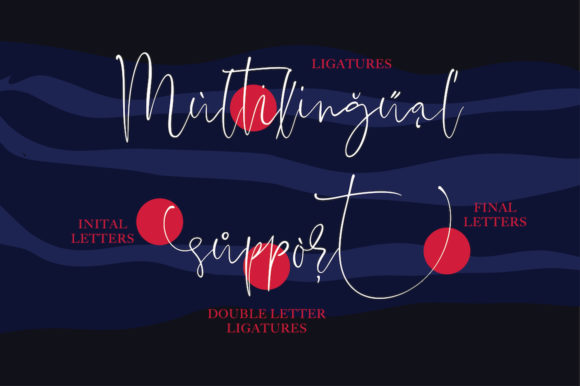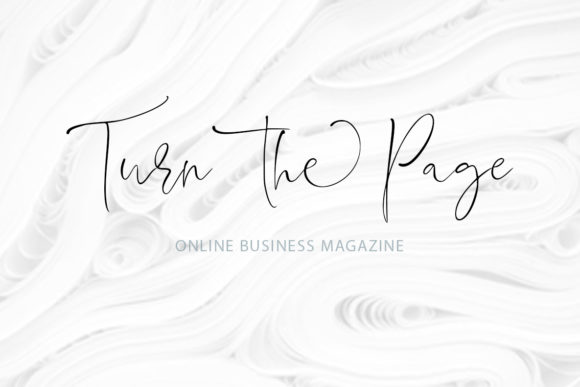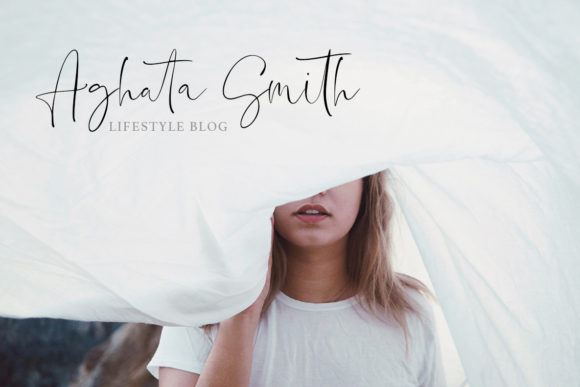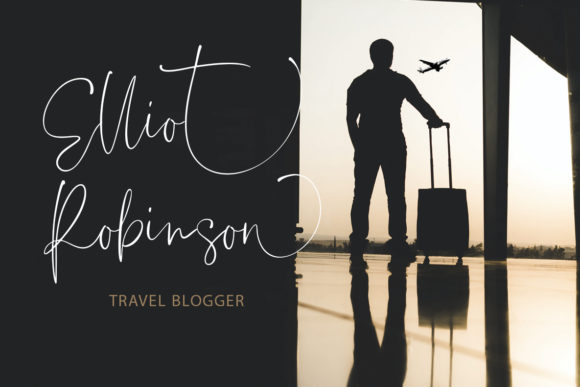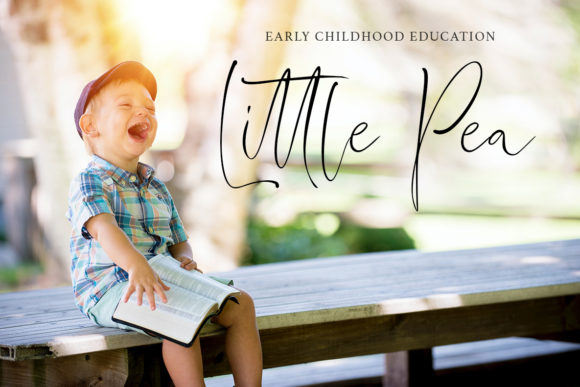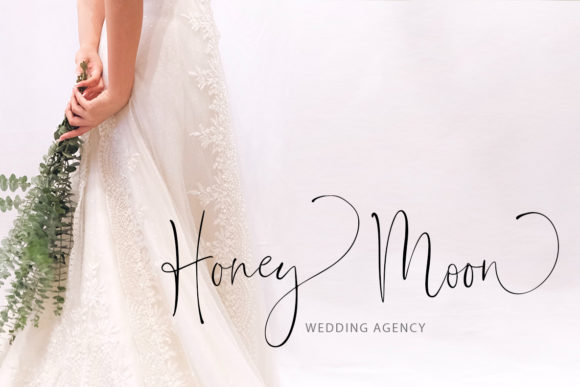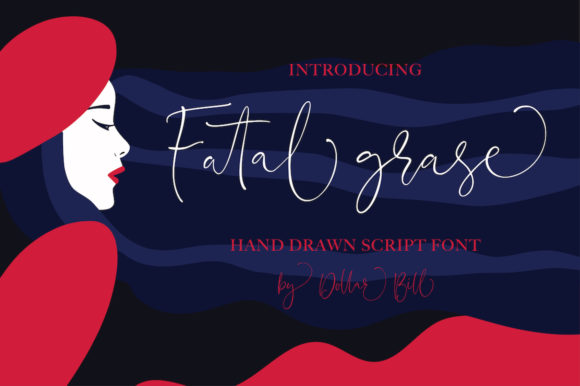
Introducing Fatal Grace Font: Elevate Your Designs with Timeless Elegance
In the world of typography, few fonts manage to strike a balance between classic sophistication and friendly approachability. Fatal Grace Font is one such exceptional typeface that combines the best of both worlds, offering a magical handwritten aesthetic with a touch of elegance. This stunning font is meticulously crafted to bring a sense of timeless elegance and authentic calligraphy to your designs, making it an indispensable tool for designers and crafters alike.
The Essence of Fatal Grace Font
Fatal Grace Font is a beautiful blend of traditional calligraphy and modern sensibilities. Its incredibly classic style is reminiscent of bygone eras, yet it retains a friendly feel that makes it approachable and relatable. This unique combination makes Fatal Grace an ideal choice for a wide range of design projects, from wedding invitations and branding materials to blog headers and digital content.
Key Features of Fatal Grace Font
- Magical Handwritten Aesthetic: Fatal Grace boasts a whimsical, handwritten look that adds a personal touch to any design.
- Timeless Elegance: The font exudes a classic sophistication that ensures your designs never go out of style.
- Authentic Calligraphy: With its roots in traditional calligraphy, Fatal Grace brings an air of authenticity to your typography.
- Friendly Feel: Despite its elegance, the font maintains a friendly and approachable vibe, making it versatile for various applications.
- Perfect for Original Designs: Fatal Grace is designed to help you create standout designs that are both unique and visually appealing.
Why Choose Fatal Grace Font?
For designers and crafters looking to elevate their work, Fatal Grace Font offers several compelling advantages:
- Versatility: Whether you’re working on digital content, print materials, or handmade crafts, Fatal Grace adapts seamlessly to different mediums.
- Emotional Connection: The font’s handwritten nature and elegant style help create an emotional connection with your audience, making your designs more impactful.
- Time-Saving: With Fatal Grace, you can achieve professional-looking results without spending hours on custom lettering.
- Unique Appeal: In a sea of generic fonts, Fatal Grace stands out with its distinctive charm, ensuring your work gets noticed.
Applications of Fatal Grace Font
The versatility of Fatal Grace Font makes it suitable for a myriad of projects:
- Wedding and Event Invitations: Add a touch of sophistication and romance to your invitations.
- Branding and Logo Design: Create memorable and elegant brand identities.
- Digital Content: Enhance your blog posts, social media graphics, and website headers with a touch of class.
- Crafting and DIY Projects: Perfect for handmade cards, scrapbooking, and other craft projects.
How to Get the Most Out of Fatal Grace Font
To maximize the potential of Fatal Grace, consider the following tips:
- Experiment with Colors: Play around with different colors to match your brand or project’s aesthetic.
- Mix and Match: Combine Fatal Grace with other fonts to create stunning contrasts and visual interest.
- Adjust Size and Weight: Don’t be afraid to experiment with different sizes and weights to add hierarchy and emphasis to your text.
- Use in Combination with Images: Pair the font with high-quality images or illustrations to create visually compelling compositions.
| Font Name | Fatal Grace Font |
Fatal Grace Font is more than just a typeface; it’s a design tool that brings a unique blend of elegance, authenticity, and friendliness to your projects. Whether you’re a professional designer or a crafting enthusiast, Fatal Grace offers the perfect combination of style and versatility. By incorporating Fatal Grace into your design arsenal, you’ll be well on your way to creating original, outstanding designs that leave a lasting impression.